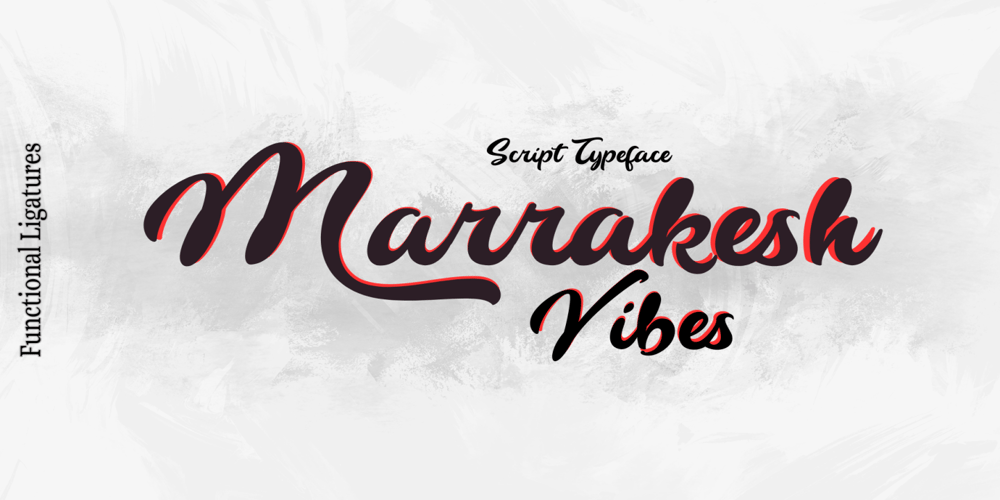
Marakesh Vibes Font Family was designed by Chank Diesel and published by Adita Fonts. Marakesh Vibes contains 1 styles and family package options. Marrakesh Vibes is a delightful handwritten font, radiating warmth and personality. Its playful yet legible style lends itself well to various projects, from greeting cards to branding. With natural strokes and charming irregularities, this font captures the essence of handmade authenticity, infusing any design with character and charm.